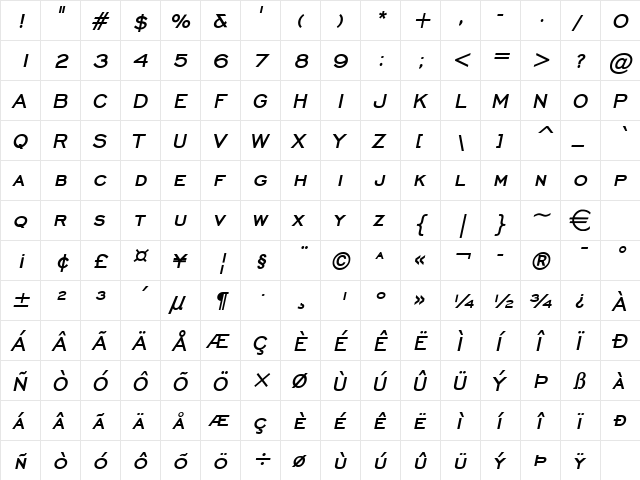
Chisel BoldItalic
Design Context for Chisel Typeface
Chisel takes a measured approach to typography — its balanced proportions and neutral character make it a reliable workhorse for both digital and print work. Its italic angle brings a sense of urgency and motion to the letterforms. The heavy weight commands attention and anchors typographic hierarchies.
Pro Tip: Use Chisel for emphasis, pull quotes, and subheadings where its slanted energy can add rhythm to the layout.